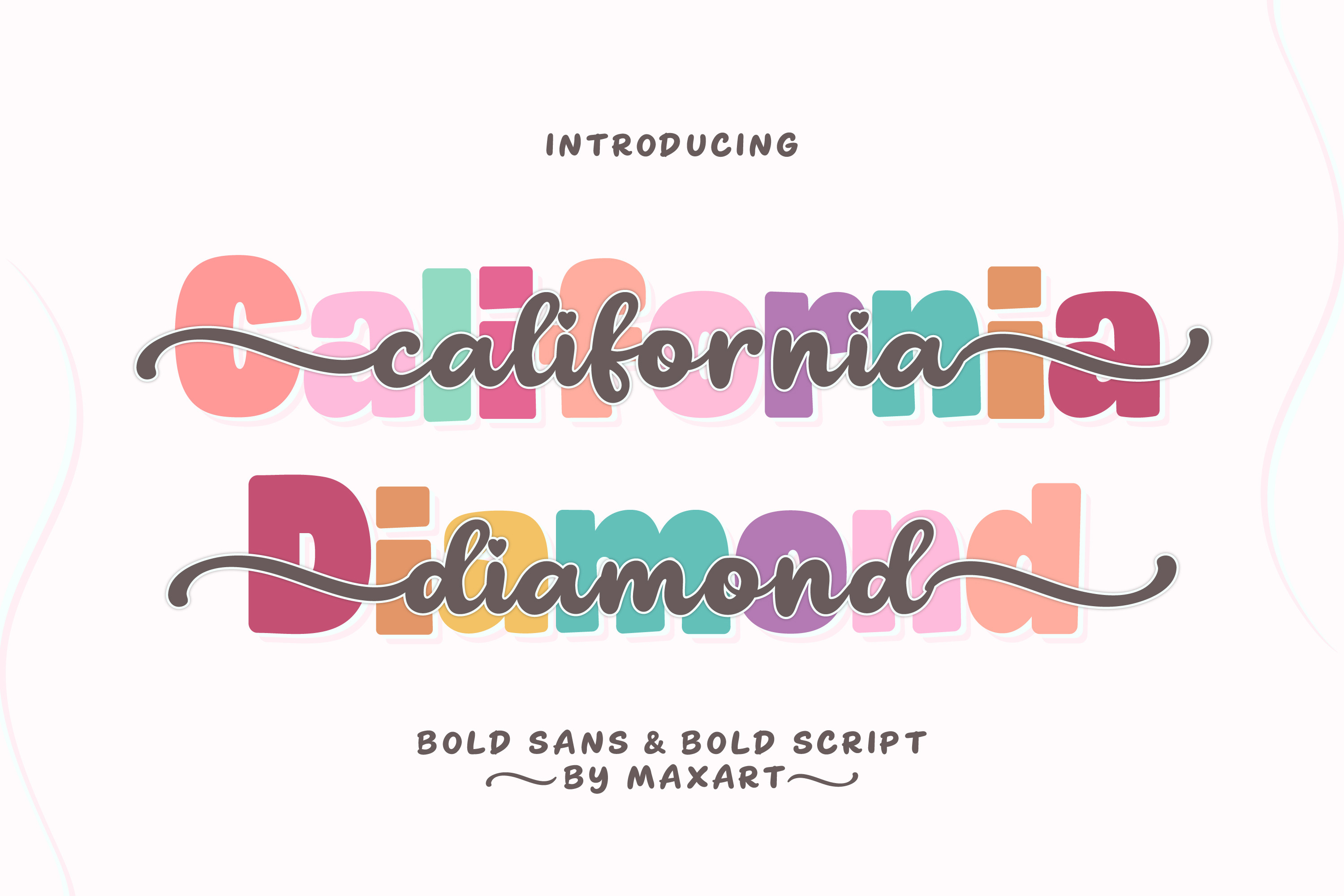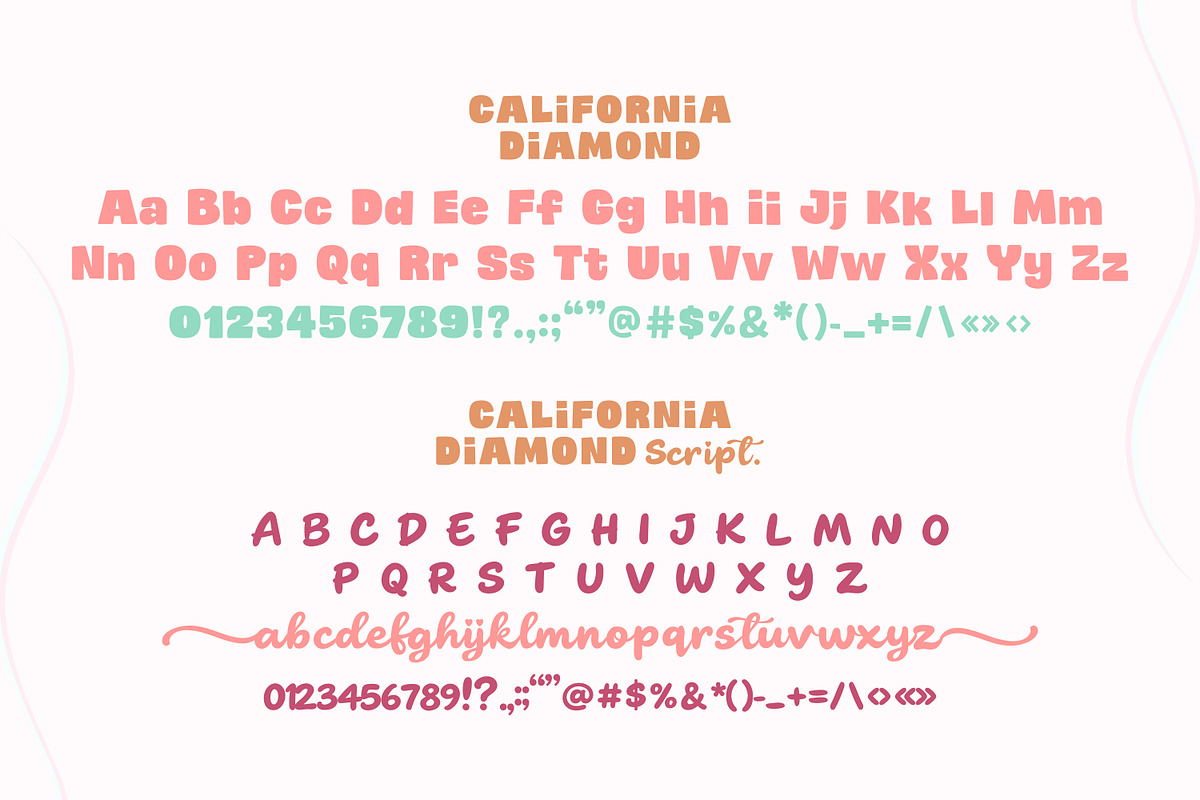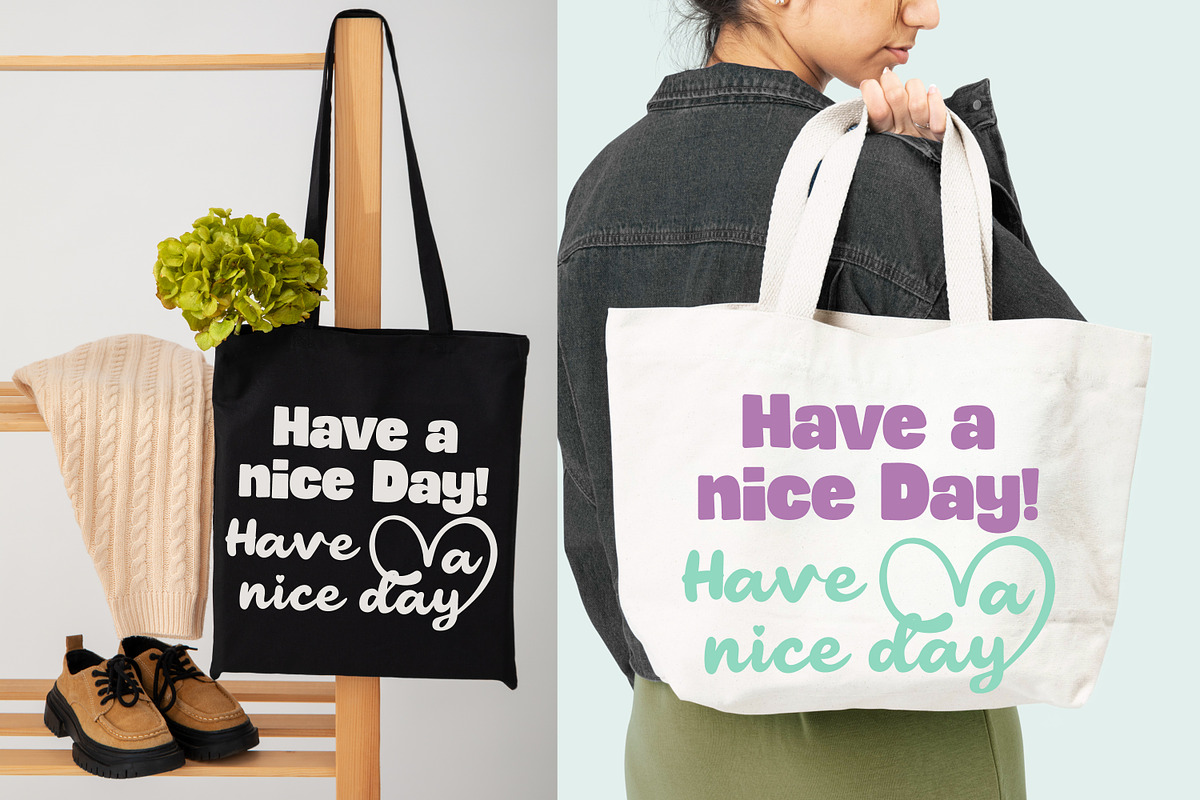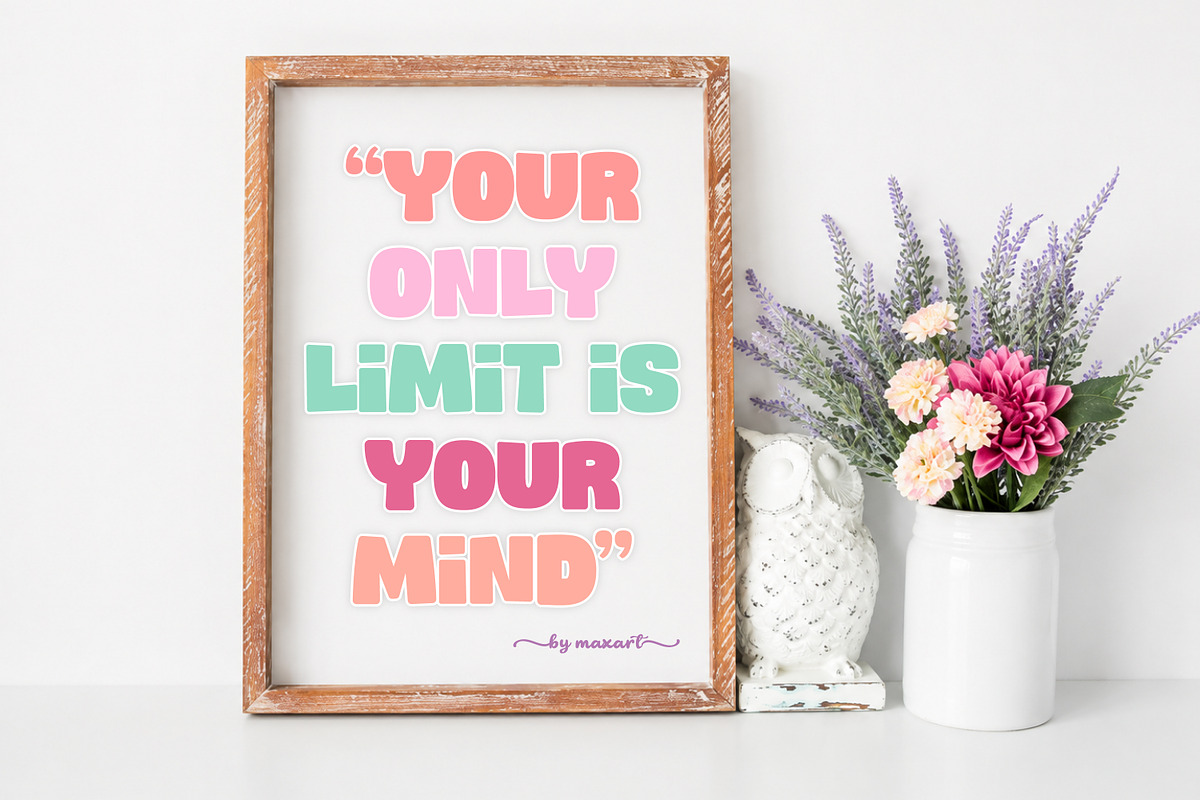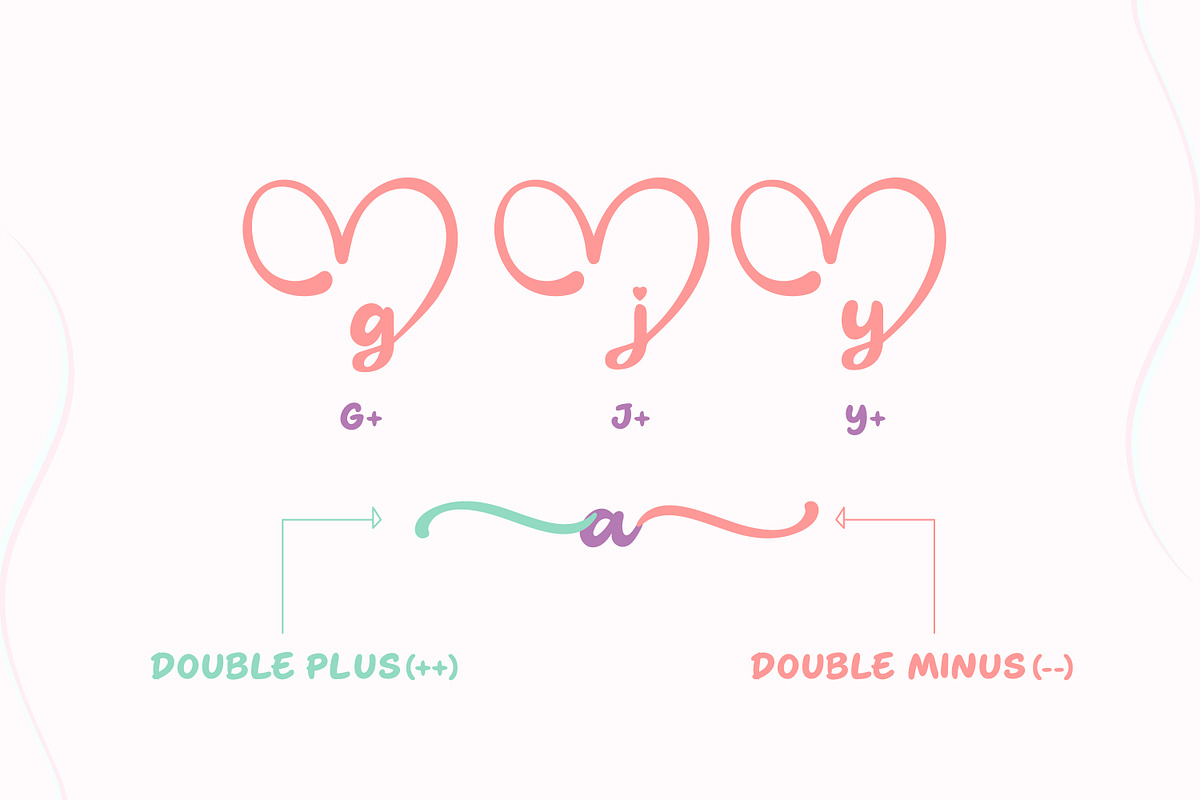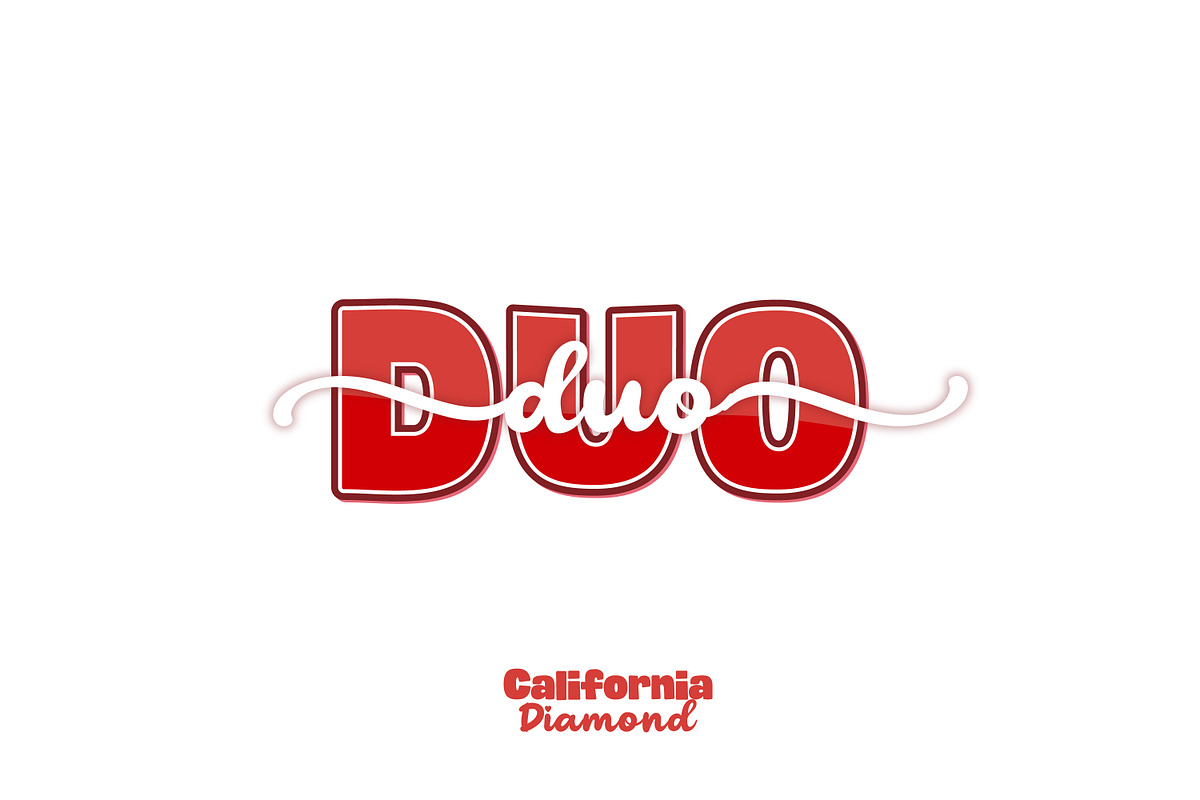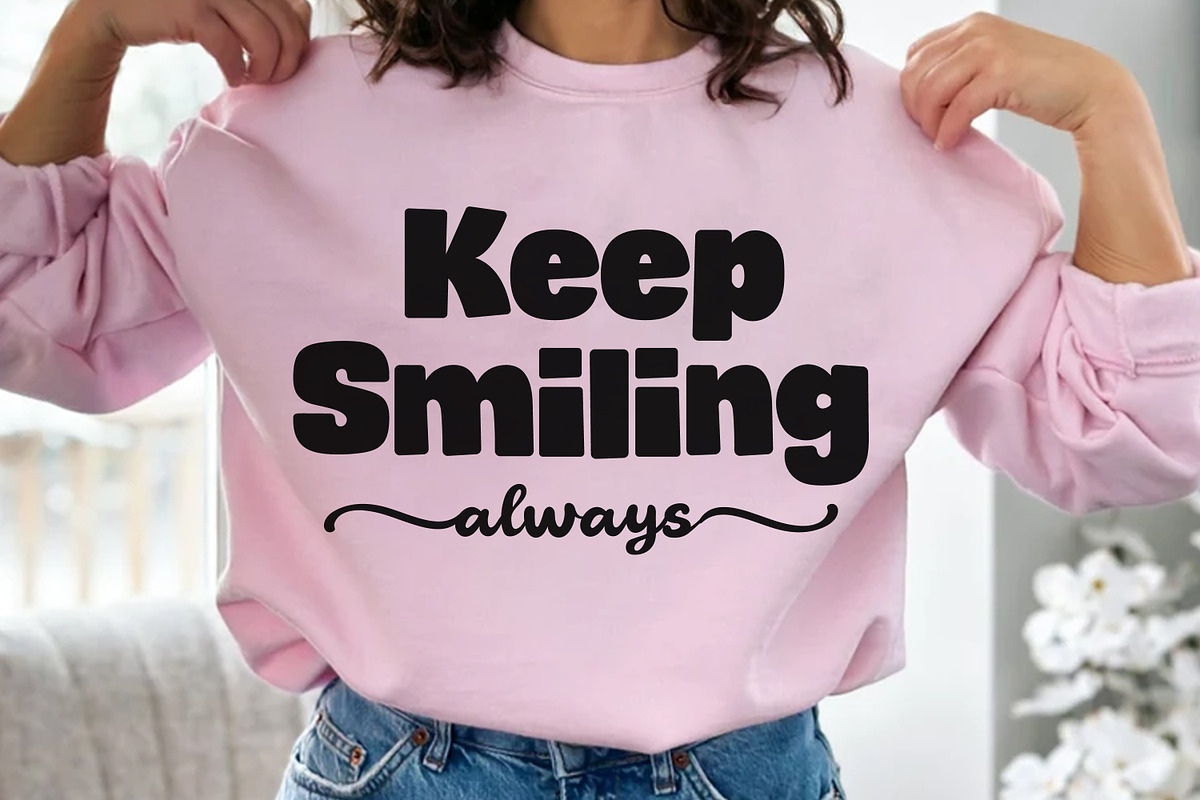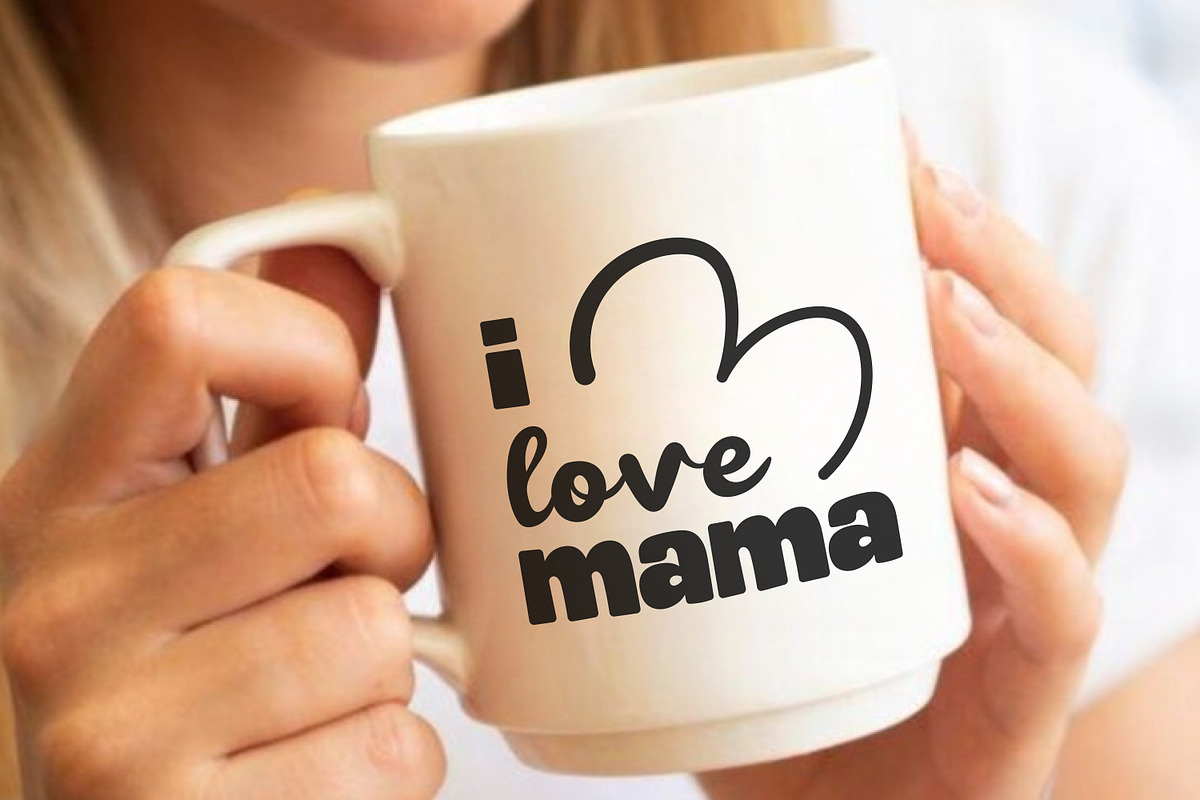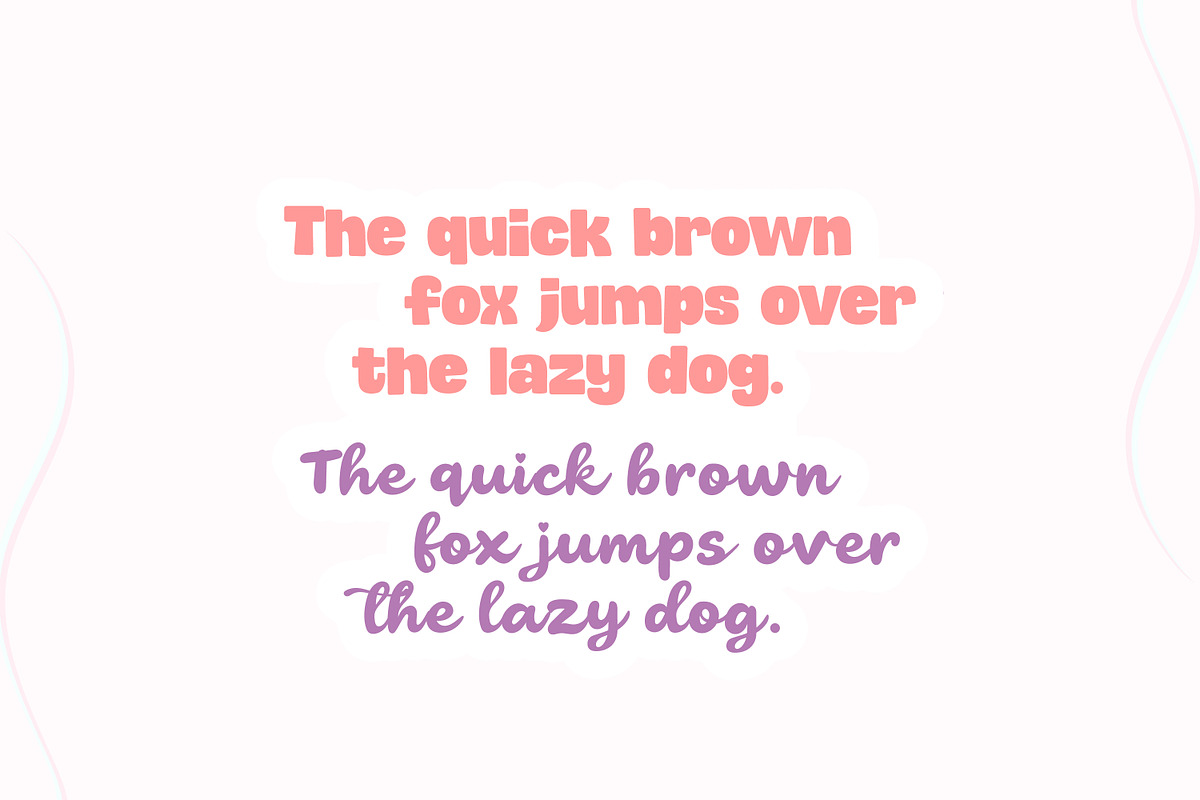
California Diamond Duo font
Bring winning duo energy, California Diamond is a delicate, elegant, and flowing Bold Sans and Bold Script handwritten fon duo. It has beautiful and well-balanced characters and as a result, it matches a wide pool of designs.